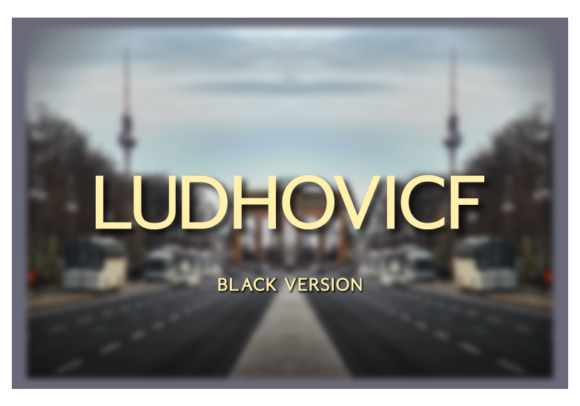
Ludhovicf Black, the captivating sans serif font family, stands as a testament to the harmonious fusion of classic Spanish architectural elements and contemporary minimalist design. This groundbreaking creation by A Christie captivates with its distinctive cut-ins and curves, transforming your designs into captivating works of art.
Each glyph exudes elegance and sophistication, drawing inspiration from the intricate facades of Spanish structures and the clean lines of modernism. Immerse yourself in a world of captivating typography where tradition intertwines with innovation.
Whether you're crafting breathtaking logos, elegant headlines, or captivating website designs, Ludhovicf Black empowers you to express your creativity with unparalleled flair. Its versatility knows no bounds, making it the perfect choice for a wide range of projects.
With Ludhovicf Black flowing through your designs, you'll leave an unforgettable impression on your audience. Its timeless appeal and modern sensibility combine seamlessly, elevating your work to new heights of visual excellence.